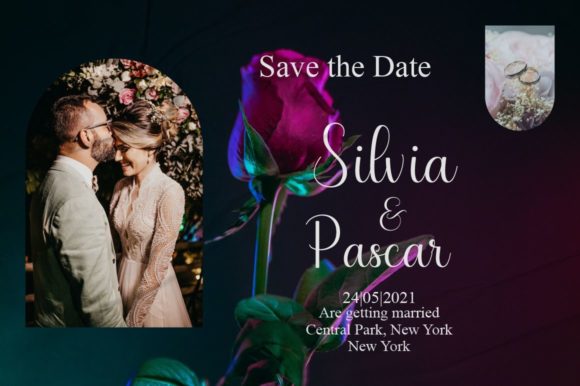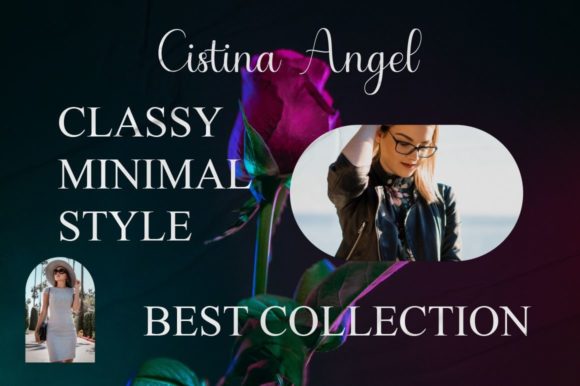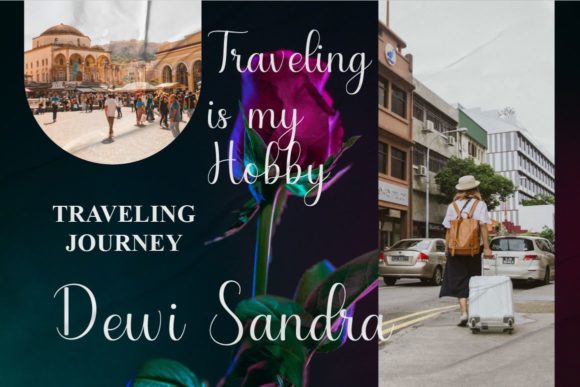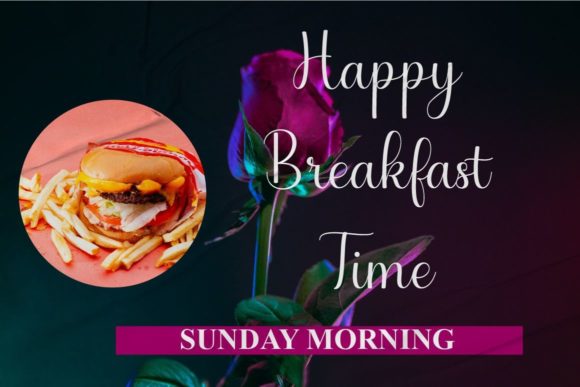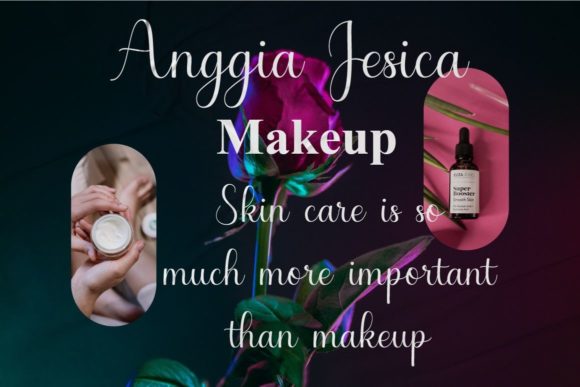
Introduction to Mehraj Cinta Font
As designers, we’ve all been there – staring at a blank canvas, trying to bring our vision to life. It’s the moment when the perfect font can make all the difference. Imagine a script that flows like a gentle stream, elegant and refined, yet bold and eye-catching. For those who crave that special something, we’re excited to introduce the Mehraj Cinta Font – a true masterpiece that will elevate your creative projects to new heights.
This exquisite handwritten font is a game-changer for designers, offering a unique blend of classic calligraphy and modern flair. With its high-quality design and transparent background, it’s the perfect resource for any project that demands sophistication and style.
Mehraj Cinta Font
- Designed with a unique and elegant style, perfect for romantic and inspirational themes.
Honest Review: Mehraj Cinta Font
I recently came across the Mehraj Cinta Font and was excited to give it a try. As a designer, I’m always on the lookout for high-quality design resources to elevate my creative projects. In this review, I’ll share my honest thoughts on what works well and where this font falls short.
- High-quality design: The Mehraj Cinta Font is beautifully crafted with intricate details and a unique aesthetic.
- Limited font styles: While the Mehraj Cinta Font is well-designed, it’s limited to a single style, which might not be suitable for projects that require multiple font variations.
- Not ideal for body text: Due to its intricate design, this font might not be the best choice for large blocks of body text, where readability is crucial.
Overall, the Mehraj Cinta Font is a great addition to any designer’s toolkit. While it has some limitations, its unique design and high-quality craftsmanship make it an excellent choice for creative projects where visual impact is key. I’d definitely recommend giving it a try, especially if you’re looking for a free design resource with a transparent background.
Mehraj Cinta Font
Mehraj Cinta Font is ideal for:
- Designing wedding invitations and other romantic projects.
- Creating custom logos and branding materials.
- Adding a touch of elegance to digital presentations and documents.